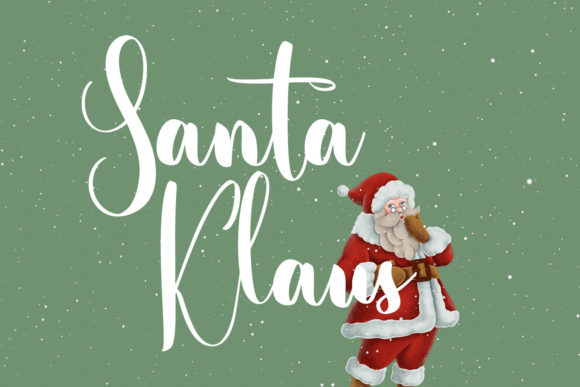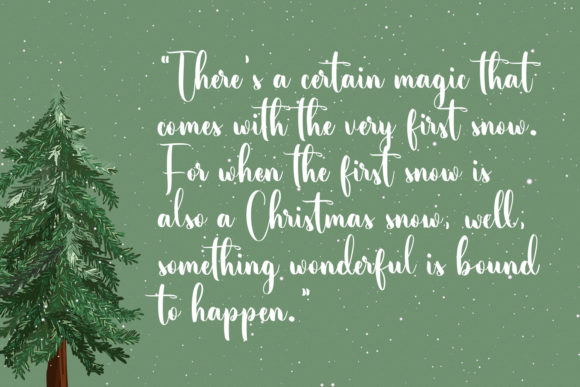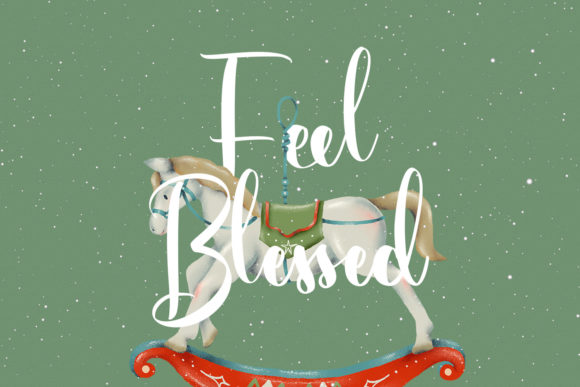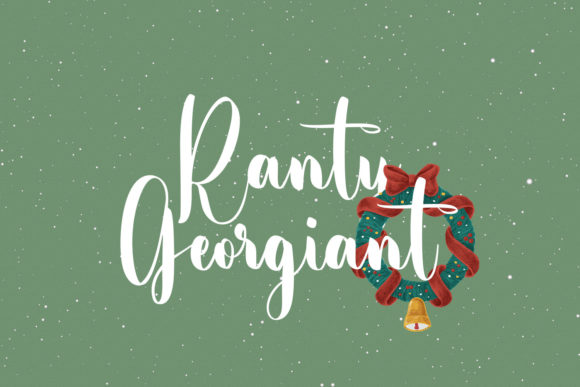
About Sweety Klaus Script Font
Sweety Klaus is a casual and stylish script font featuring regular contrast strokes, fun characters, and unique ligatures.
This font is great for logo design, Social media, Movie Titles, Books Titles, short text, even long text.